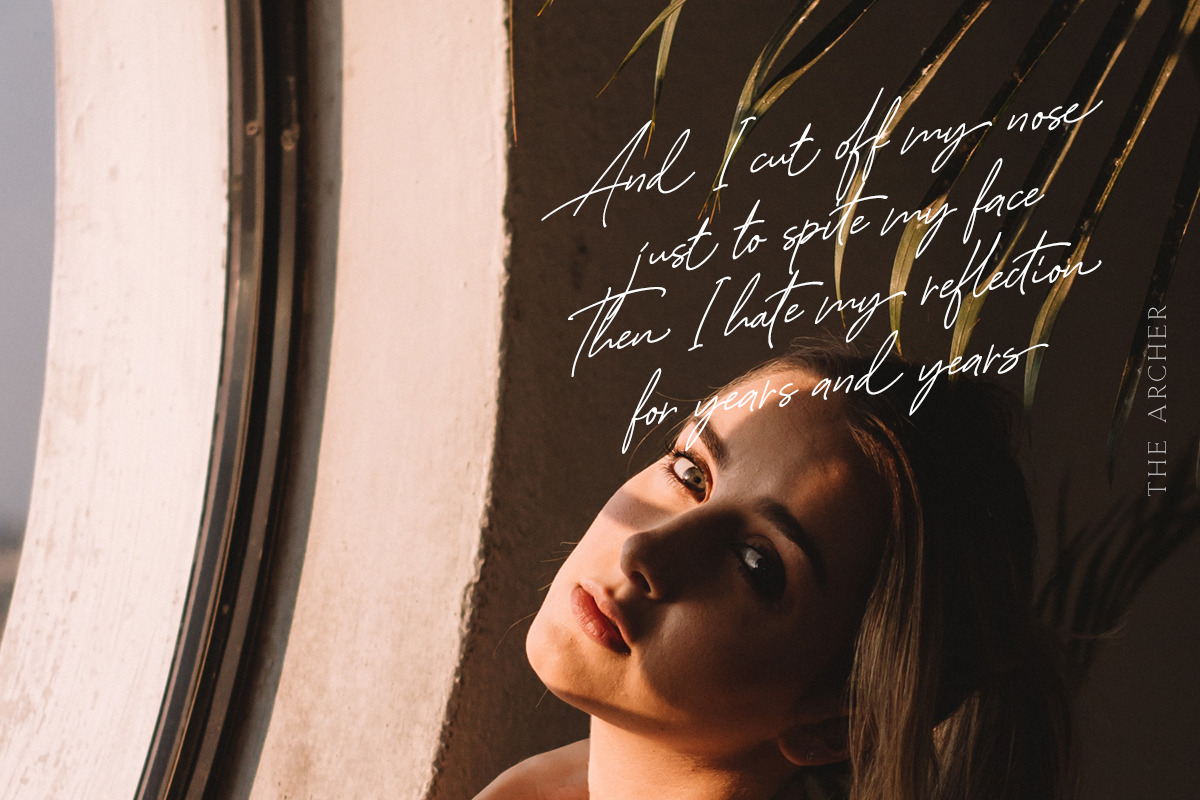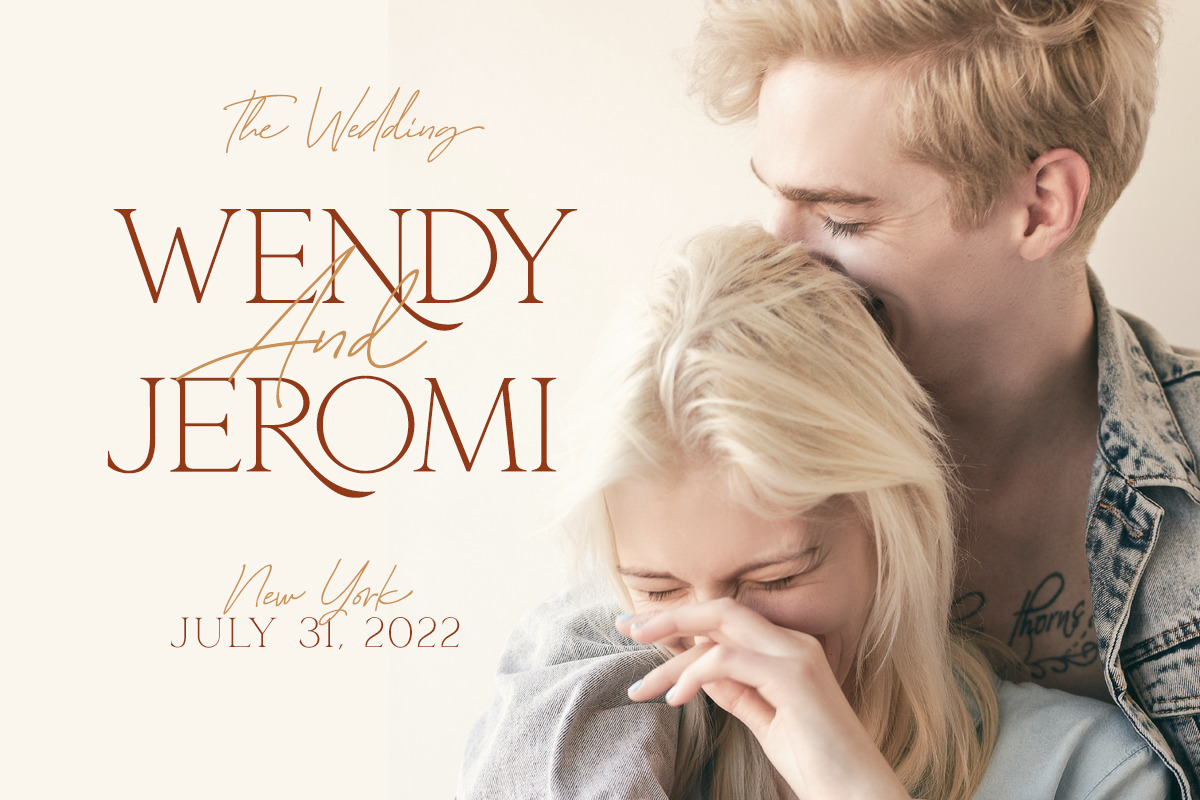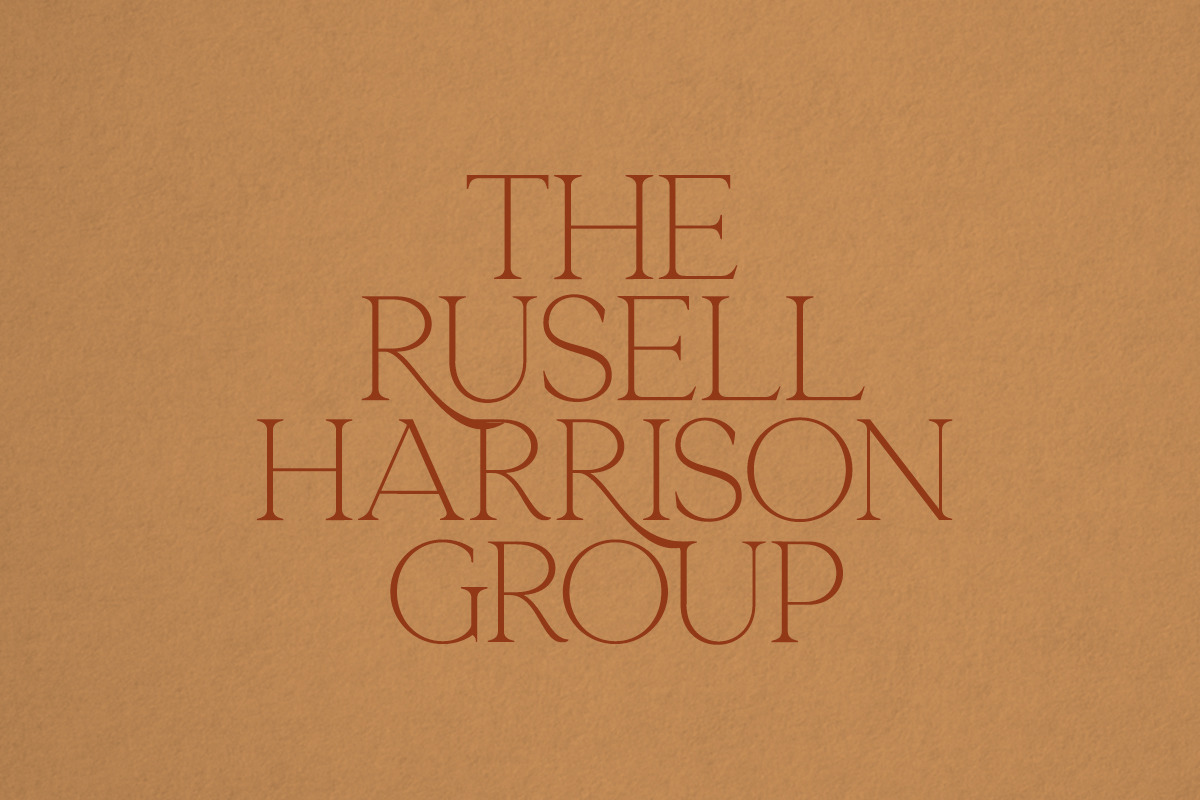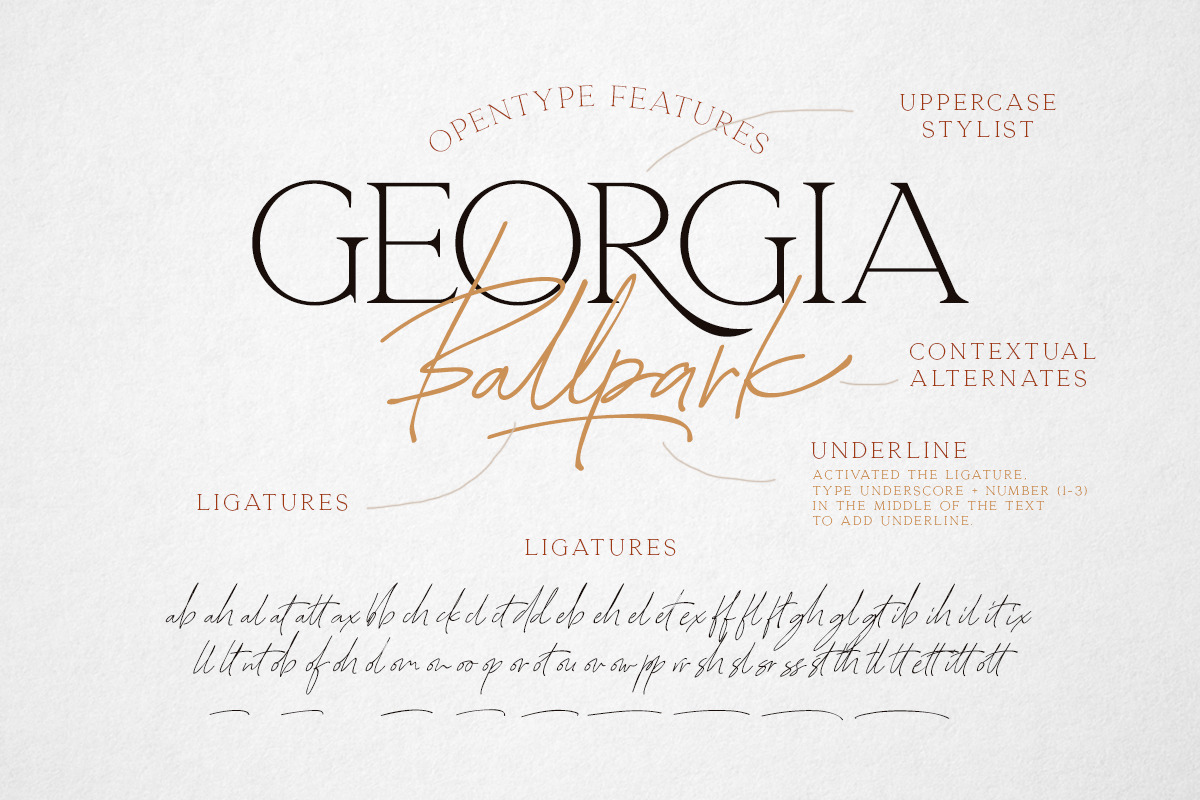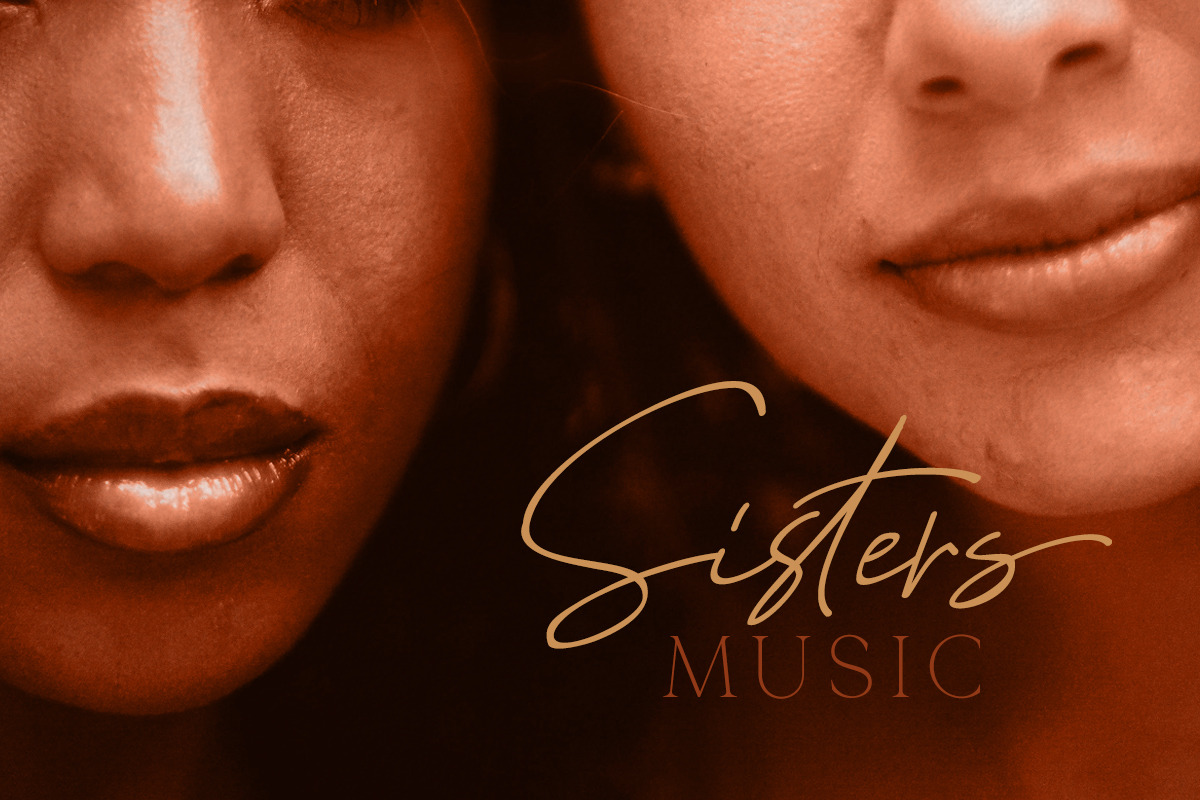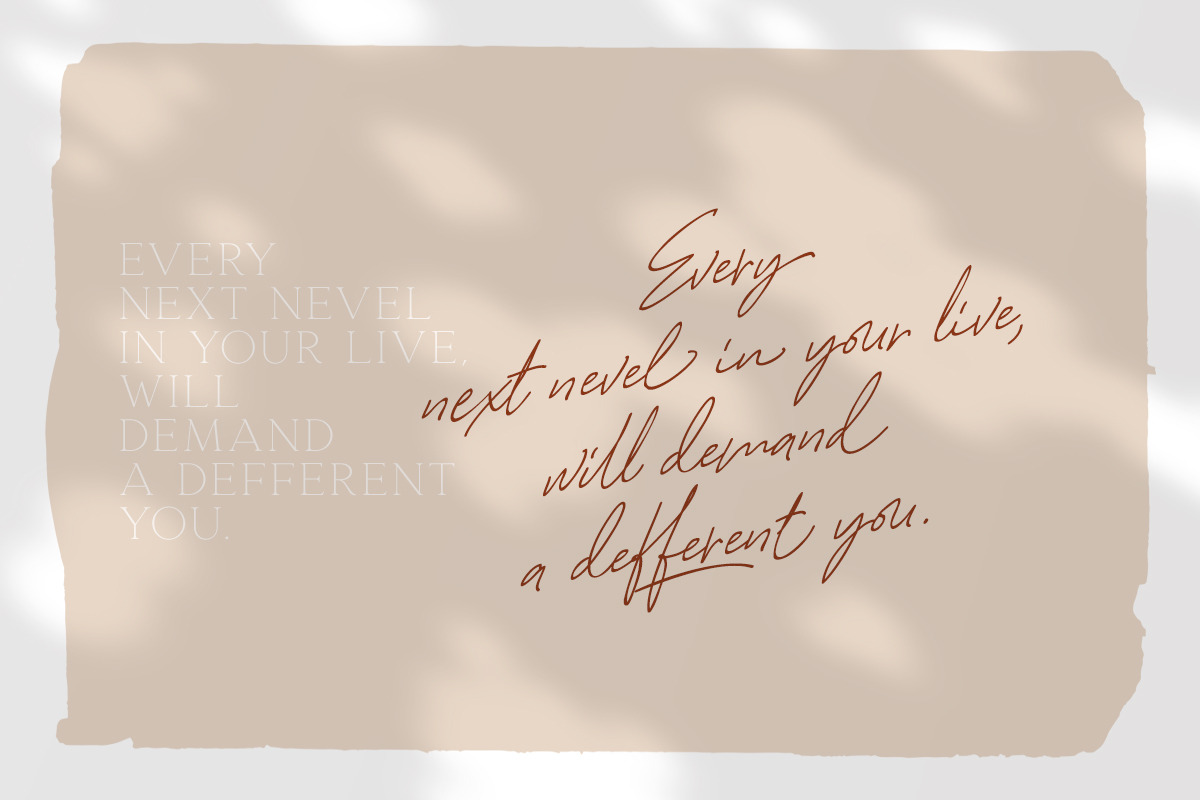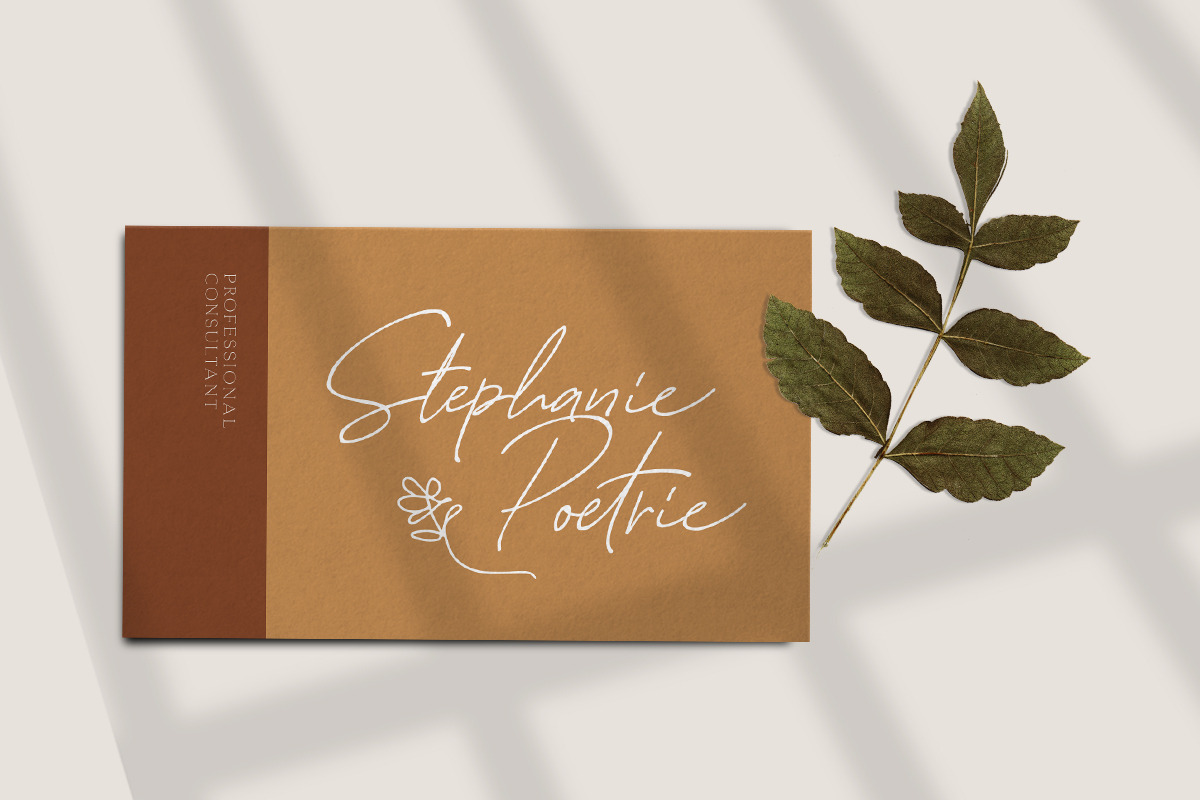
Georgia Ballpark - FONT DUO
Introducing, Georgia Ballpark - Font Duo | Serif & Script
Georgia Ballpark is perfect combination between modern serif with signature script font. Contain two fonts, the delicate modern serif and a free hand writing script. This font duo also support multilingual, number and symbol, end swash and many ligatures. Also this font already PUA Encoded.
- This font duo also support multilingual, number and symbol, end swash and many ligatures.